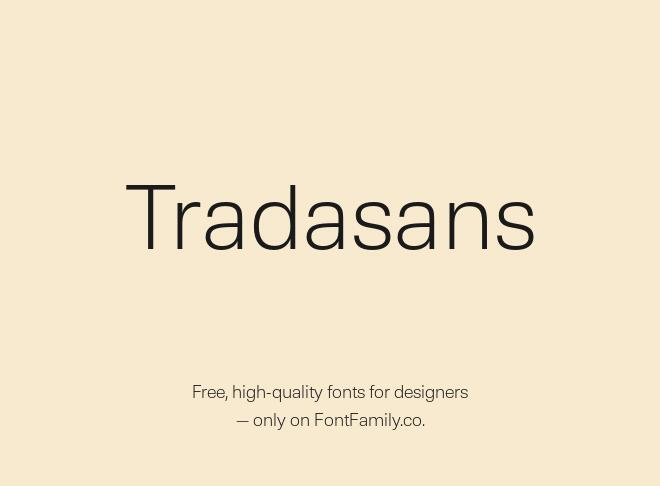
Tradasans Font
Tradasans Font is a geometric, sans serif typeface that embodies modern minimalism. Its clean lines and balanced letterforms make it ideal for use in both print and digital designs. The font is reminiscent of classic modernist typefaces, yet it has a contemporary twist that makes it versatile and adaptable. Tradasans Font is perfect for use in logos, branding, web design, and editorial work. Its geometric structure gives it a professional and polished look, while its simplicity ensures that it doesn't overpower the design. It compares favorably with other modern sans serif fonts, but stands out due to its unique character and style. Tradasans Font is a great choice for designers seeking a typeface that is both functional and aesthetically pleasing. It is free to download and use under the Open Font License, making it a valuable addition to any designer's toolkit.